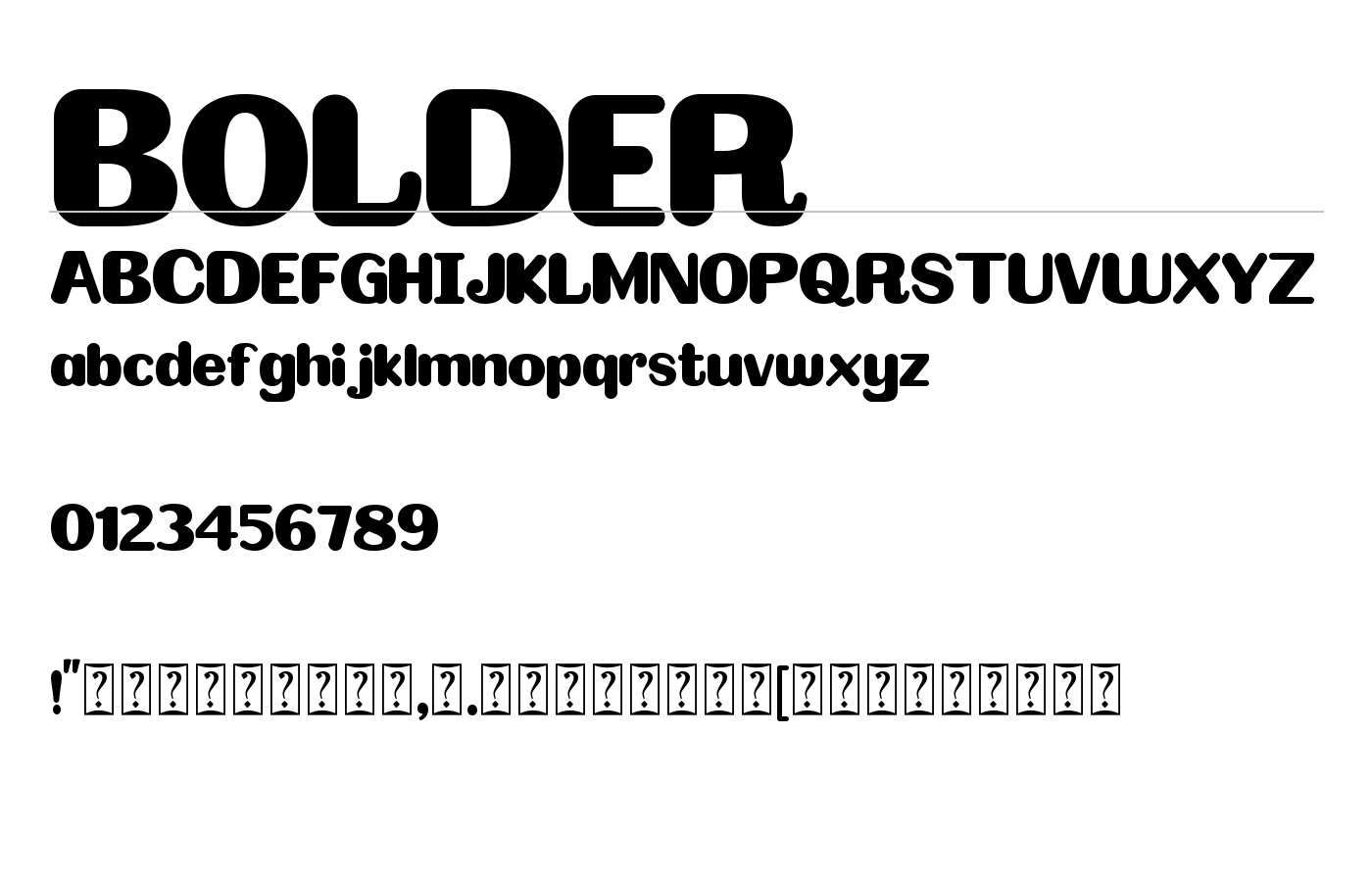
BOLDER is a bold, playful sans serif font with rounded edges and a friendly, approachable style. Its thick strokes and slightly condensed letterforms make it perfect for attention-grabbing headlines, logos, and branding that needs a lively yet strong personality. This font works well in creative and informal contexts where clarity and warmth are desired.
BOLDER Font
About BOLDER Font